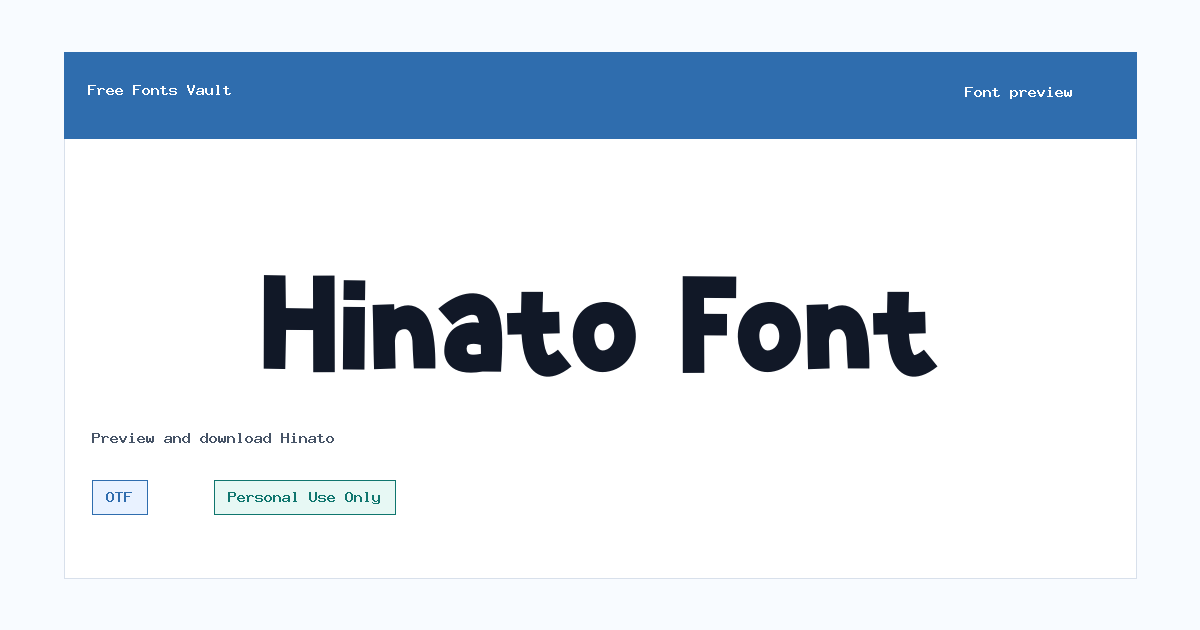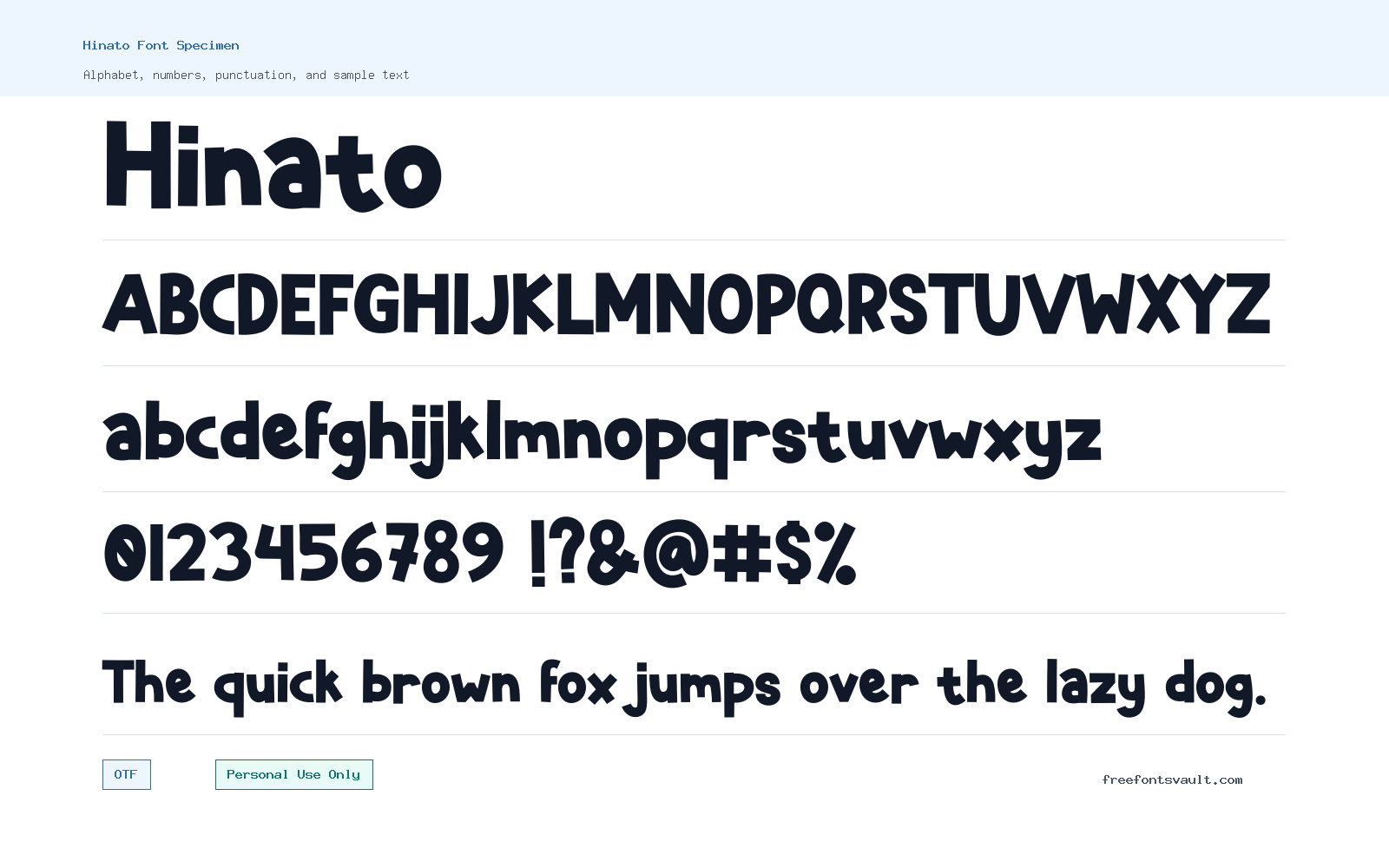
Hinato
Hinato is a display font with a clear decorative focus, made for short pieces of text that need more personality than a standard body typeface. It is best treated as a headline or branding-style font rather than an everyday reading font.
Hinato works well when you want a font to carry the mood of a design on its own. Because it is a display typeface, the strongest use is in places where the letters are large enough to show their shape: logo drafts, poster titles, social media graphics, packaging mockups, cover art, badges, invitation headers, and web hero sections. Use the preview tool to test your own words before downloading, especially if the final design includes names, brand phrases, or mixed uppercase and lowercase text. Display fonts can look very different depending on the exact characters used, so checking the real wording is more useful than judging it from a sample alone.
For design work, keep Hinato focused. It can be the main visual voice in a layout, but it should usually be paired with a simpler font for supporting text. A clean sans serif is a safe choice for descriptions, dates, navigation labels, product details, or longer paragraphs. If you use Hinato for a logo concept, test it at several sizes: large for the main mark, medium for social profile graphics, and small for watermarks or website headers. If details start to close up or the word becomes harder to read, reserve it for larger display settings and choose a plainer companion typeface for small text.
- Display-focused style suited to short titles, branding concepts, posters, and visual headlines.
- A practical choice for mockups where the type itself needs to create a strong first impression.
- Works best when paired with a neutral text font for readability in longer copy.
- Useful for testing logo ideas, cover titles, social graphics, packaging layouts, and web hero text.
- Logo concepts and wordmark sketches for personal projects
- Poster titles, event graphics, and cover-style artwork
- Website hero headings and landing page mockups
- Social media quote cards, thumbnails, and promotional graphics
- Packaging mockups, labels, badges, and short display text
- Invitation headings, name treatments, and decorative title lines
Use Hinato for short, prominent text and check the exact words in the font preview before starting a layout. For logos, posters, and web mockups, test spacing carefully and compare the design at both large and reduced sizes. Avoid using it for long paragraphs, dense menus, captions, or small interface text. Pair it with a clean sans serif or a restrained serif so the display lettering stays readable and does not compete with the rest of the design.
What kind of font is Hinato?
Hinato is a display font, which means it is better for short, eye-catching text than for long reading.
Is Hinato good for body text?
It is not the best choice for long paragraphs. Use it for titles or short display text, then pair it with a simpler font for body copy.
What should I pair with Hinato?
A clean sans serif is usually the safest pairing. Keep the companion font simple so Hinato can remain the main visual accent.